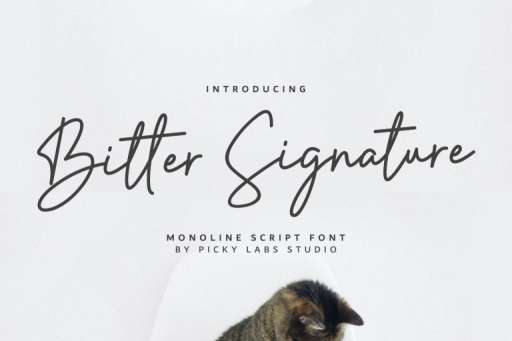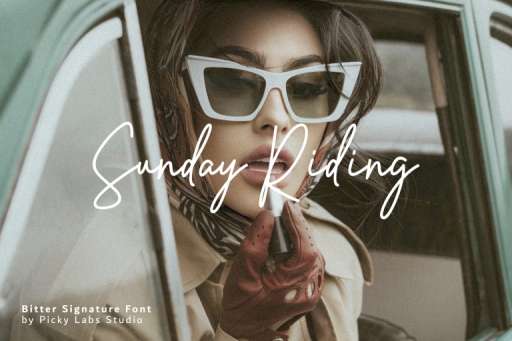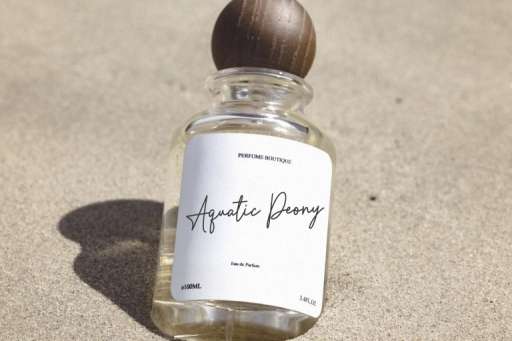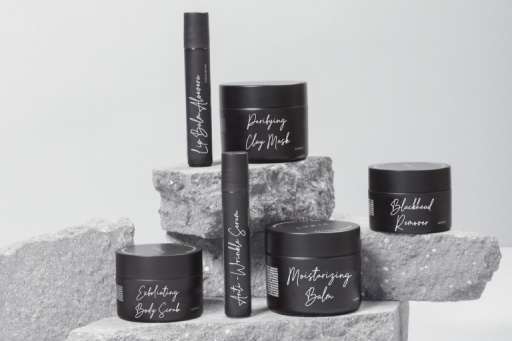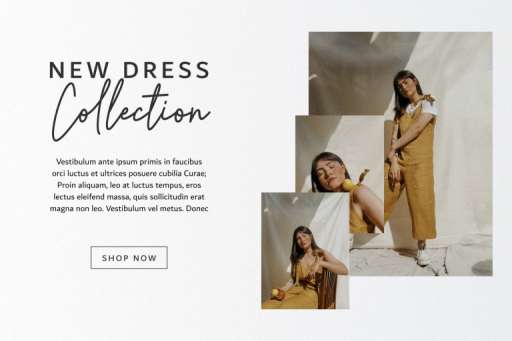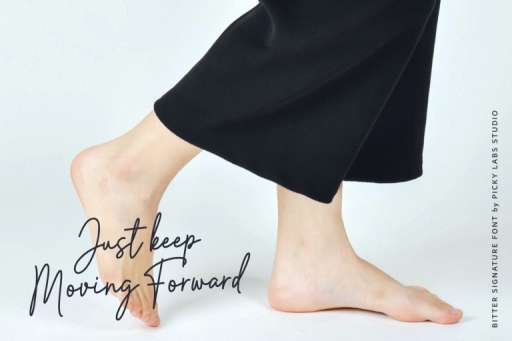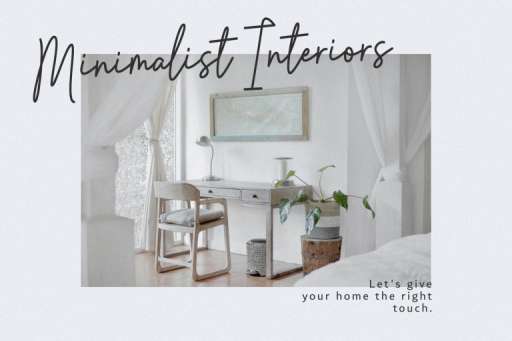
Bitter Signature Font - Business Branding Font From Jimtype Studio
Bitter Signature Font
Bitter Signature – Signature Business Font
Bitter Signature is a signature monoline font with smooth lines and a casual style. It has a natural modern look that will give your text a personal, custom-made feel. This font will look good on various branding, logotype, watermark, printed quotes, product packaging, merchandise, social media project, headline, poster, t-shirts/apparel, greeting card, wedding invitation, and more custom.
Bitter Signature Font